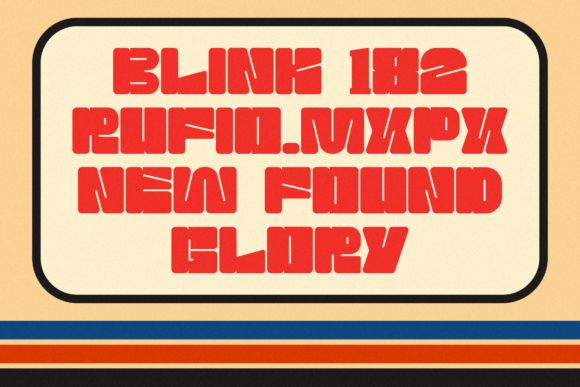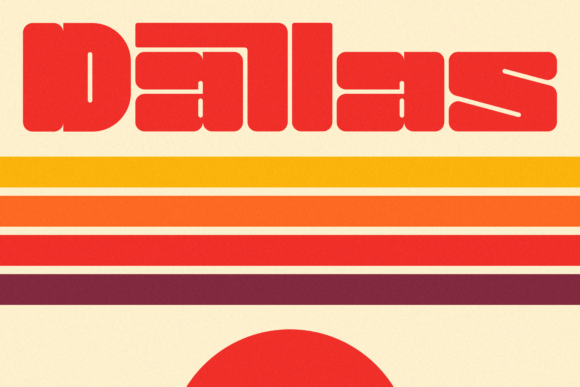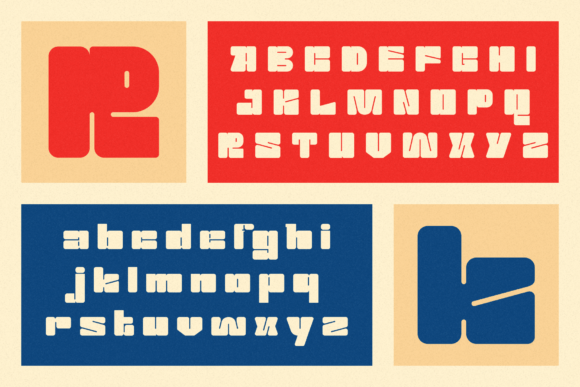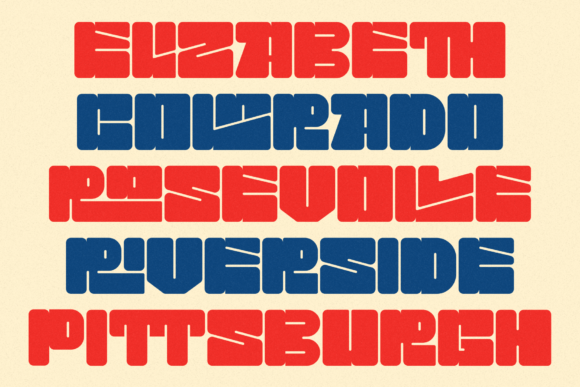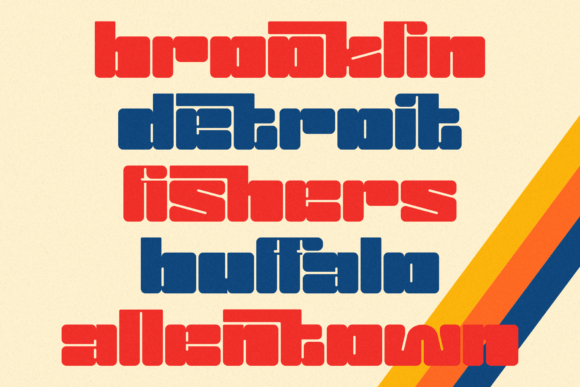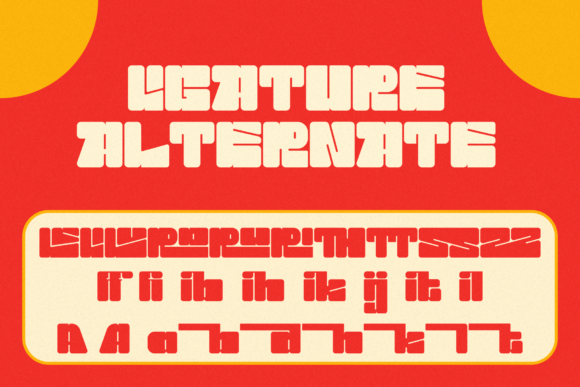
Gokil Font: The Ultimate Choice for Retro, Vintage, and Hipster Designs
Are you a designer or crafter looking for a unique and bold display font to elevate your projects? Look no further than the Gokil Font! With its rounded edges and distinctive style, Gokil is the perfect choice for retro, vintage, and hipster designs. In this article, we’ll dive into the features and benefits of Gokil Font, and explore how you can use it to take your designs to the next level.
What is Gokil Font?
Gokil Font is a bold display font with rounded edges, giving it a friendly and approachable feel. Its unique style makes it stand out from other fonts, and its versatility ensures that it can be used in a wide range of projects. Whether you’re designing a logo, creating a poster, or crafting a magazine headline, Gokil Font is the perfect choice.
Key Features of Gokil Font
Gokil Font comes with a range of features that make it a must-have for designers and crafters. Some of its key features include:
• Rounded Edges: Gokil Font’s rounded edges give it a soft and friendly feel, making it perfect for designs that require a more approachable tone.
• Alternate and Ligature Features: Gokil Font comes with alternate and ligature features, allowing you to customize your text and create unique designs.
• Bold Display Font: Gokil Font is a bold display font, making it perfect for headlines, titles, and other display text.
Use Cases for Gokil Font
Gokil Font is perfect for a wide range of projects, including:
• Branding: Use Gokil Font to create a bold and eye-catching logo that sets your brand apart.
• Poster Displays: Gokil Font is perfect for creating eye-catching poster displays that grab attention.
• Logo Designs: Use Gokil Font to create a unique and memorable logo that represents your brand.
• Magazines: Gokil Font is perfect for creating bold and eye-catching headlines and titles in magazines.
• Headlines: Use Gokil Font to create bold and attention-grabbing headlines that draw readers in.
• Stickers: Gokil Font is perfect for creating fun and eye-catching stickers that stand out.
Benefits of Using Gokil Font
There are many benefits to using Gokil Font in your designs, including:
• Unique Style: Gokil Font has a unique style that sets it apart from other fonts, making your designs stand out.
• Versatility: Gokil Font can be used in a wide range of projects, making it a versatile addition to your font library.
• Easy to Read: Despite its bold style, Gokil Font is easy to read, making it perfect for use in headlines and display text.
Tips for Using Gokil Font
Here are some tips for getting the most out of Gokil Font:
• Use it Boldly: Gokil Font is a bold display font, so don’t be afraid to use it boldly in your designs.
• Experiment with Colors: Gokil Font looks great in a range of colors, so experiment with different colors to find the one that works best for your design.
• Pair it with Other Fonts: Gokil Font pairs well with other fonts, so don’t be afraid to experiment with different font combinations.
Font Name Gokil Font
Author eotype
In conclusion, Gokil Font is a unique and versatile bold display font that’s perfect for retro, vintage, and hipster designs. With its rounded edges, alternate and ligature features, and bold style, Gokil Font is the perfect choice for a wide range of projects. Whether you’re a designer or crafter, Gokil Font is a must-have addition to your font library.